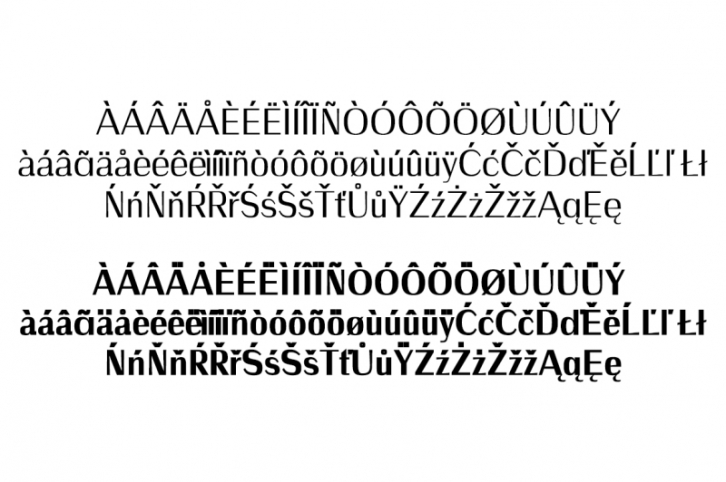
Wrenn Sans Serif font is a set of 6 weights font family. It is good for making creative templates and stationary. Wrenn typeface suits best for modern / clean designs, logos, headlines, banners and templates etc.
It looks gorgeous in all caps with a wide-set spacing if you want to try a classy look, or beautiful on its own in capital and lowercase letters for something completely timeless.
- Regular, Thin, Outline, Bold, Blur and Black Weights
- Extras: Uppercase Multilingual Letters, Lowercase Multilingual Letters, Numbers & Punctuation + Alternatives.
- Wrenn is a highly versatile Font Family Pack.
- Includes 6 weights
- The perfect choice for Modern, Fashion & Magazine Titles.
- Great for use on quotes, short phrases, magazines, logotypes and all sorts of advertising.